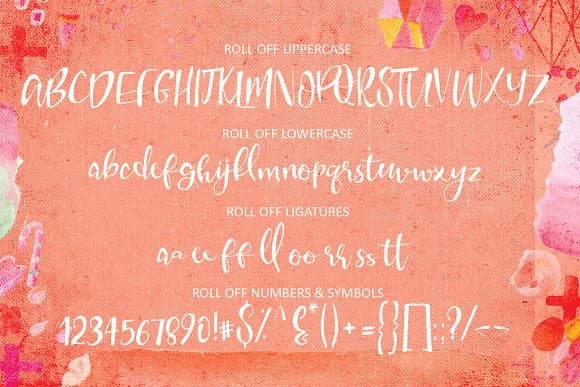
About Roll off Font
Roll Off Font by Creativeqube Design is a handwritten script typeface that captures the genuine warmth of pen on paper while delivering refined, consistent letterforms. Its flowing, relaxed character brings organic authenticity to designs while maintaining clear legibility, even at smaller sizes or on intricate, detailed applications.
This script excels in intimate design contexts where personal touch genuinely matters. Wedding stationery suites benefit tremendously from its natural flow and character, as do personalized thank-you card collections, boutique beauty brand packaging labels, and artistic lifestyle blog headers. Whether designing letterpress-ready invitations, hand-lettered social media content series, or custom vinyl projects for small-batch merchandise lines, Roll Off adapts beautifully across mediums and production methods. The typeface works seamlessly with various crafting and production tools, allowing makers and small businesses to create precision-cut vinyl decals, embroidered applications, custom engraved signage, and artisan product labels with smooth, consistent curves throughout. Its inherent versatility bridges elegant and playful contexts without feeling forced or out of place.
Roll off Font is a script font that shines as a display or heading face. Pair it with a clean sans-serif or serif font for body text — the contrast creates a clear hierarchy while the two styles stay balanced and easy to read.